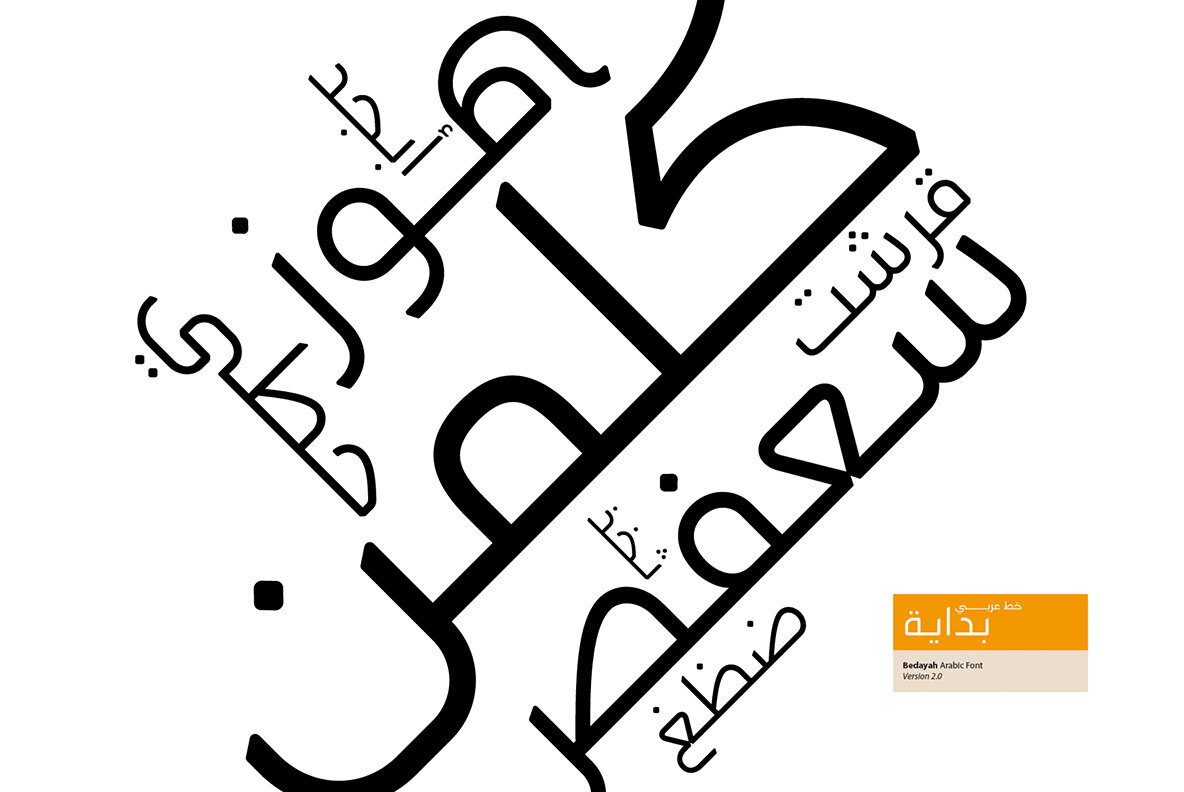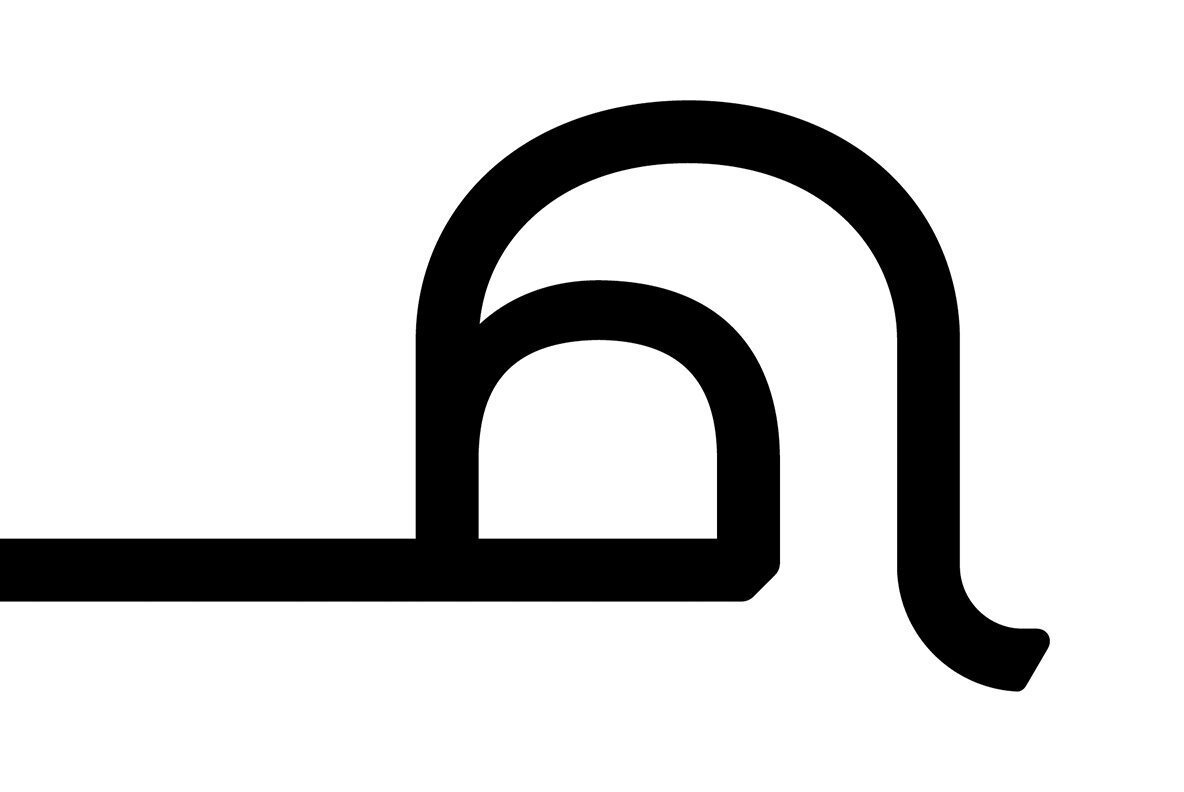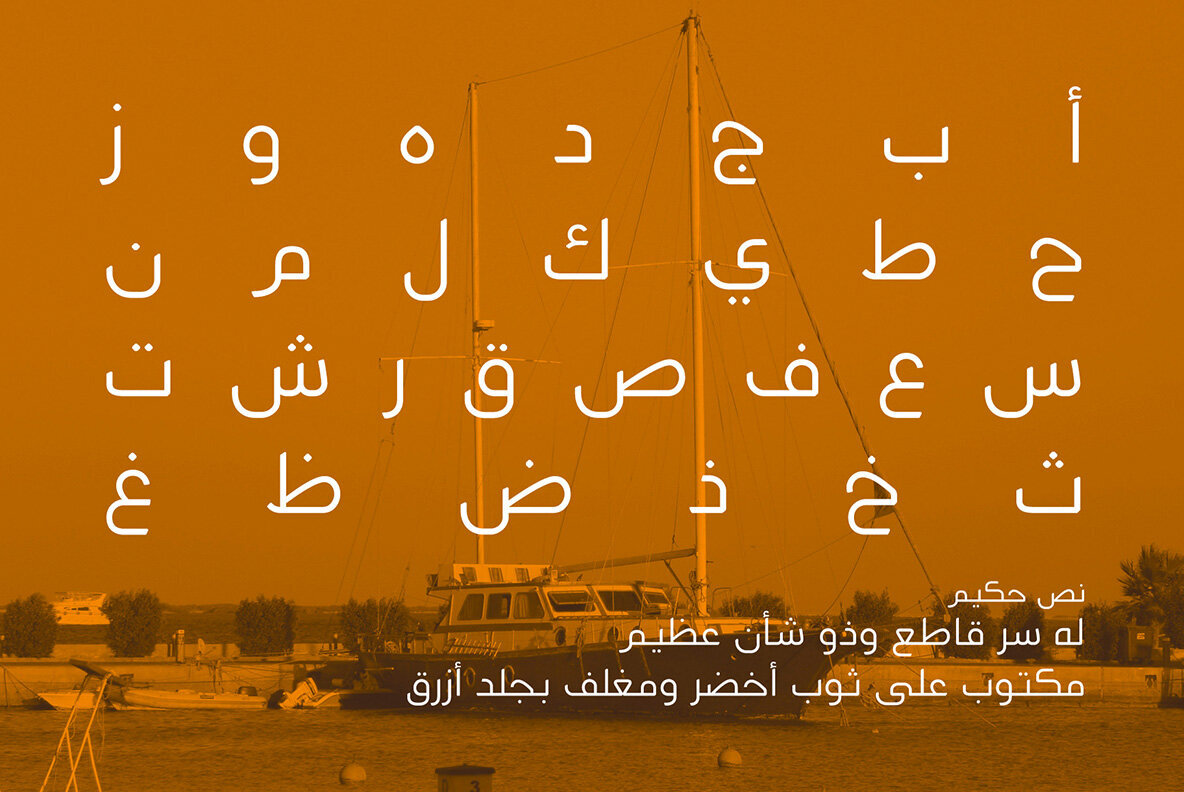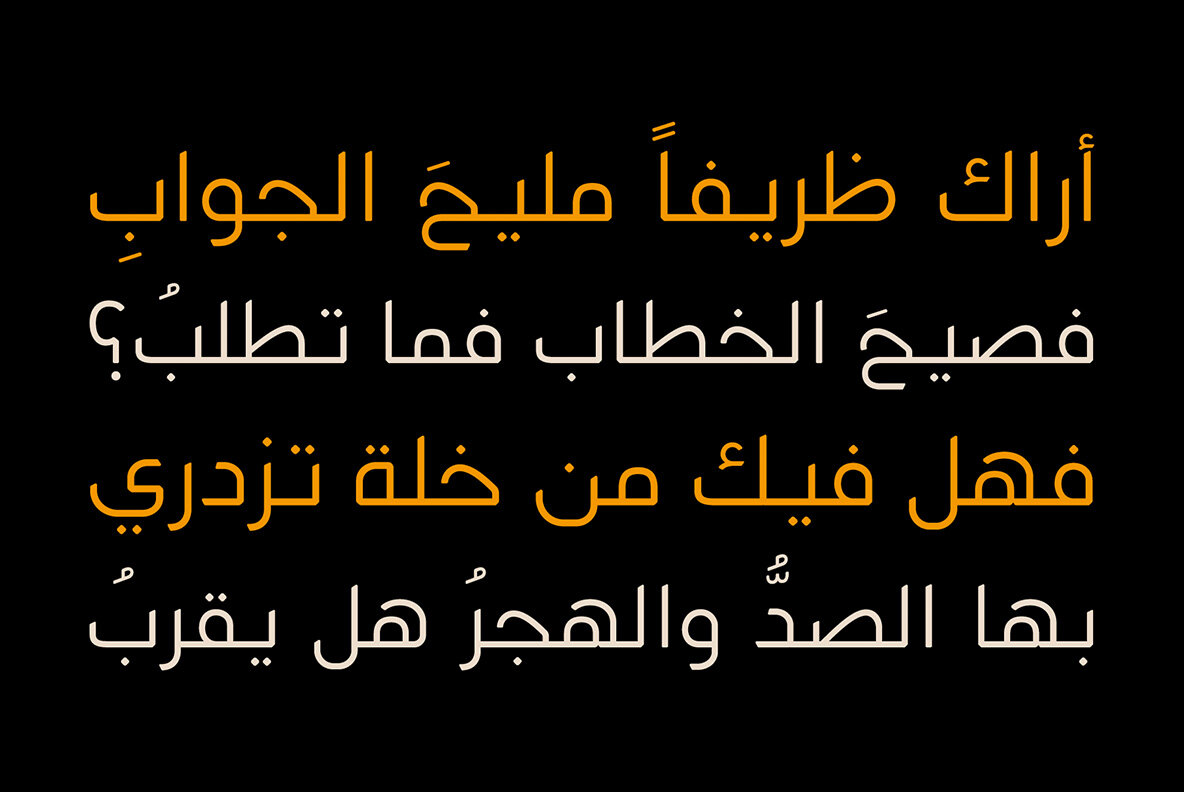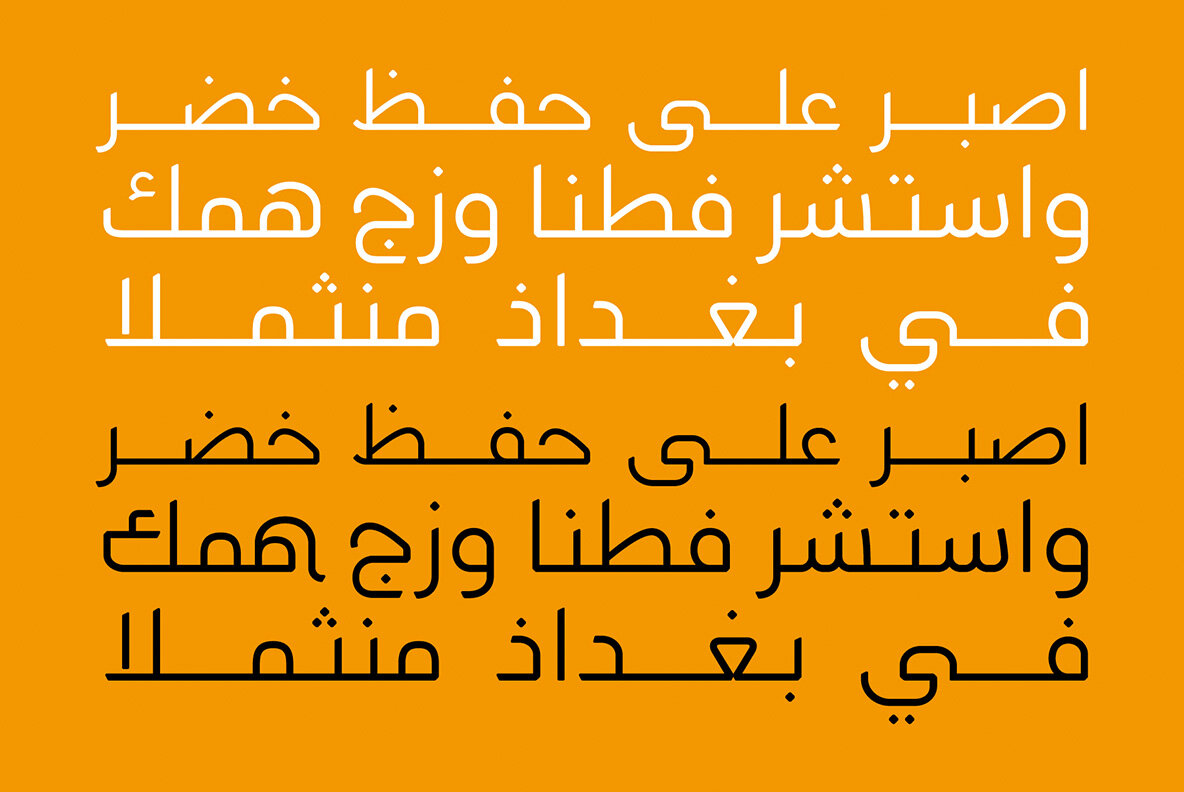
Bedayah Font
Bedayah (the Arabic for 'Beginning') is an Arabic font that blends unique geometric structure with contemporary aesthetics of Arabic letterform design. Bedayah suits advertising, desktop publishing and web design.